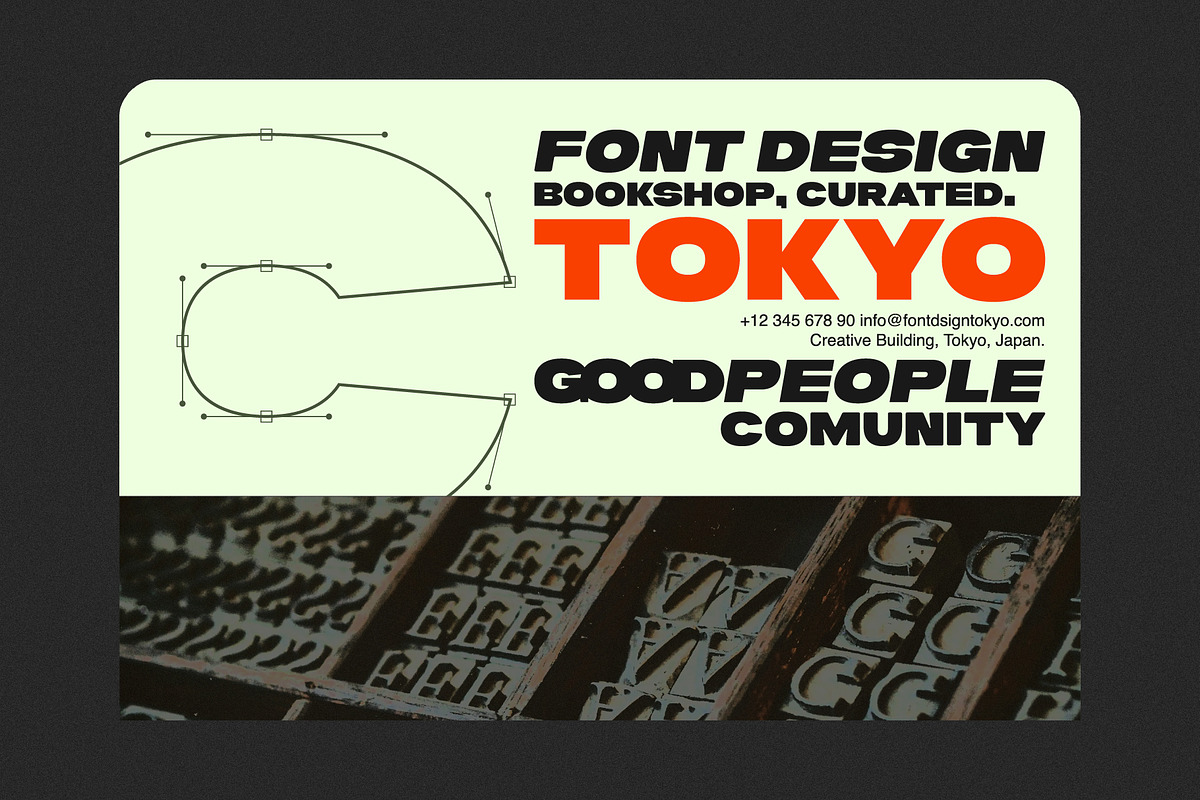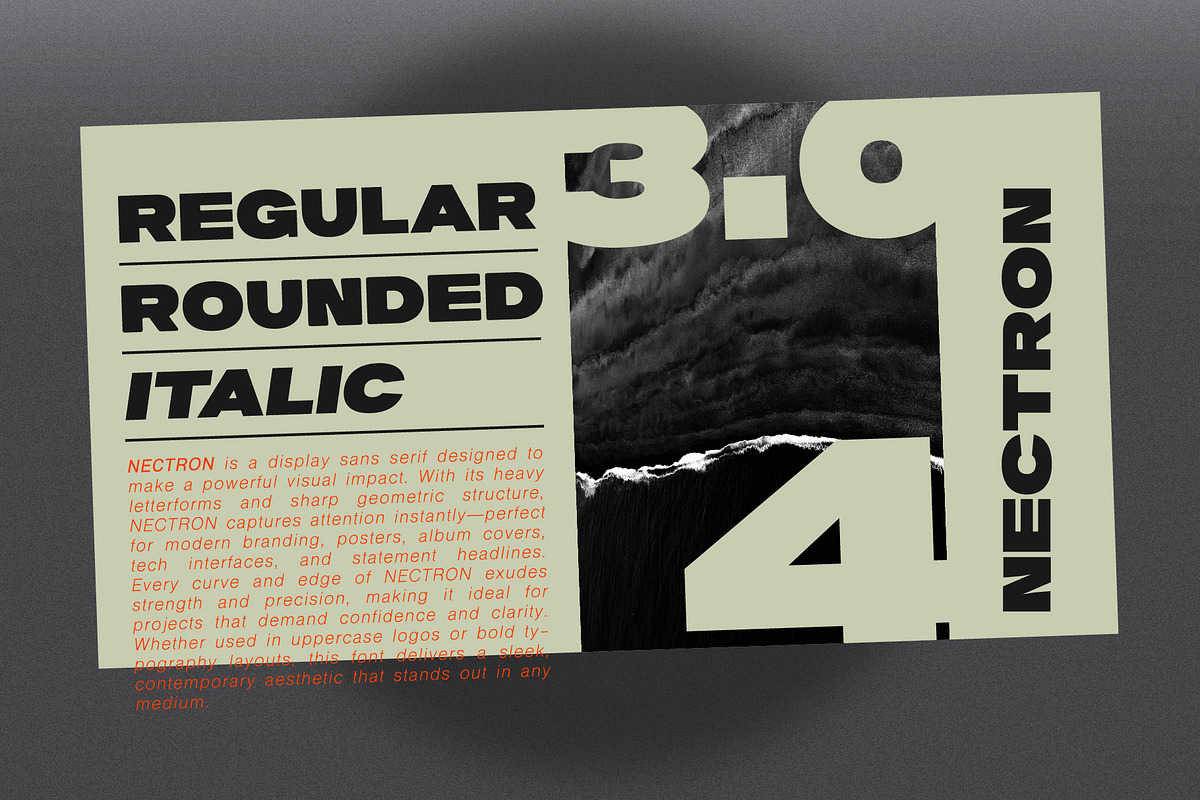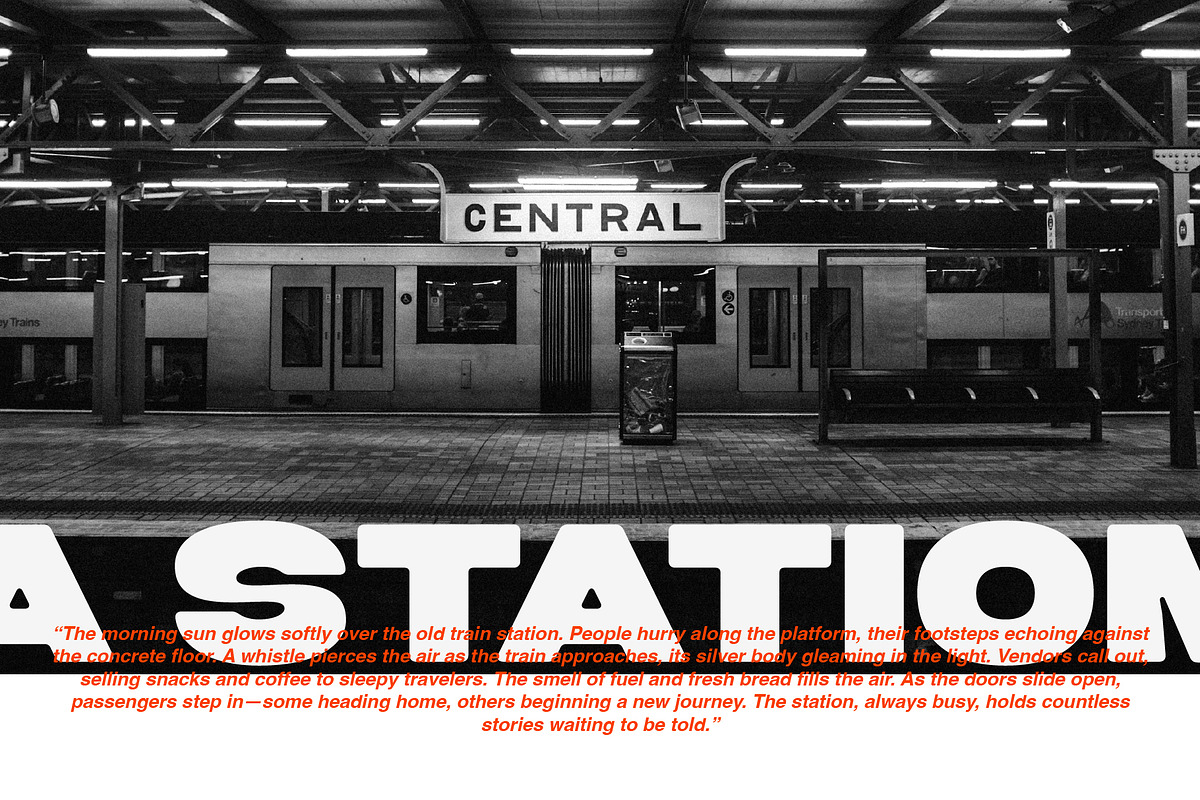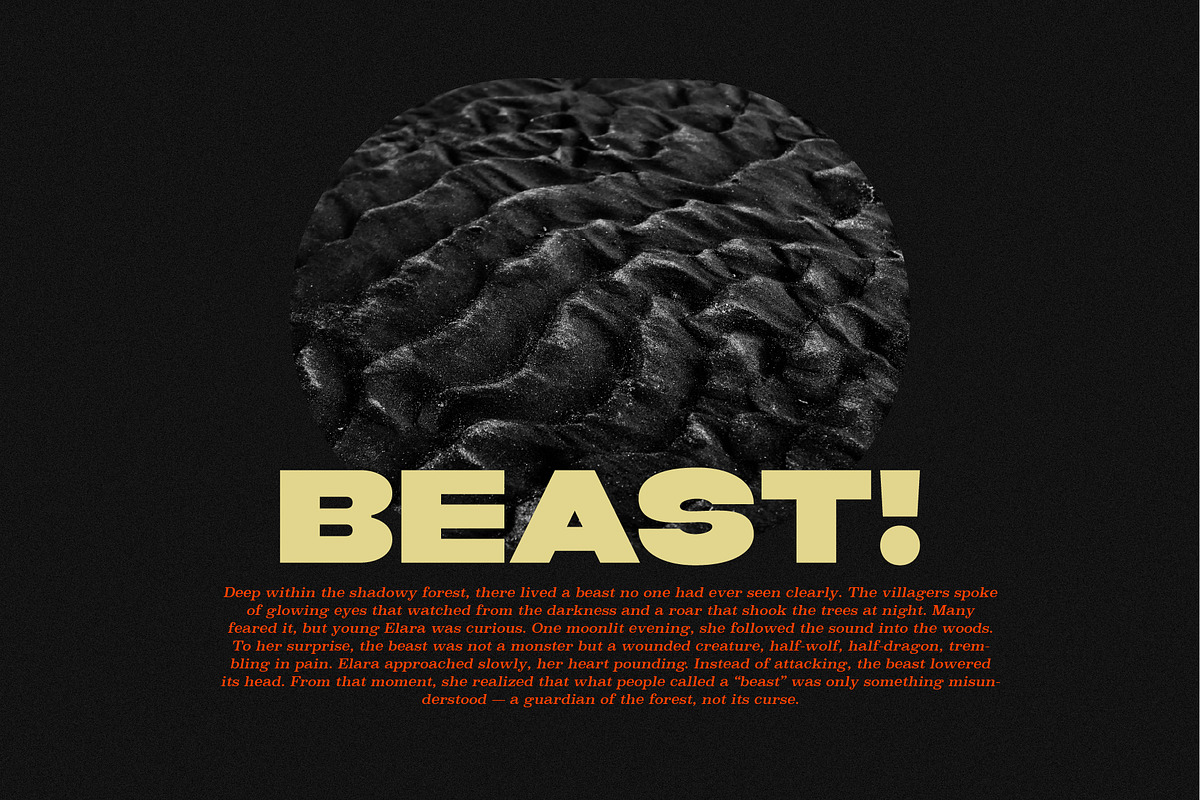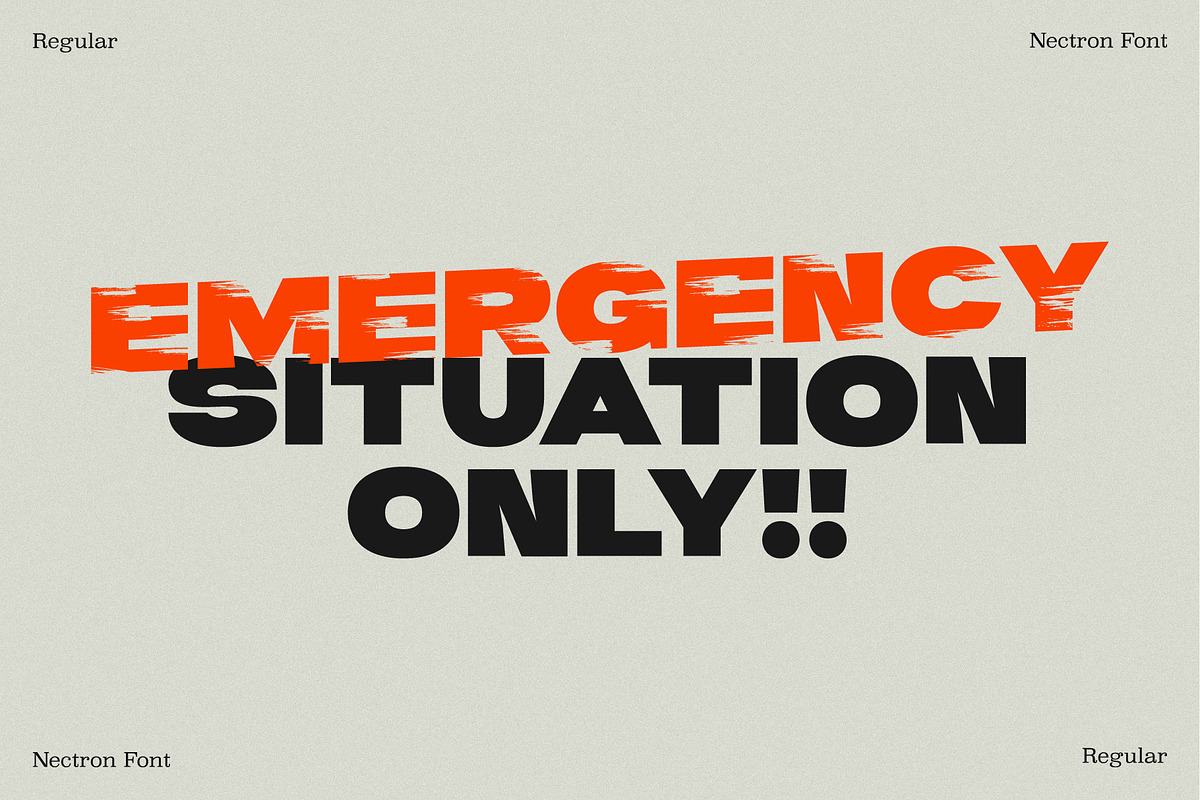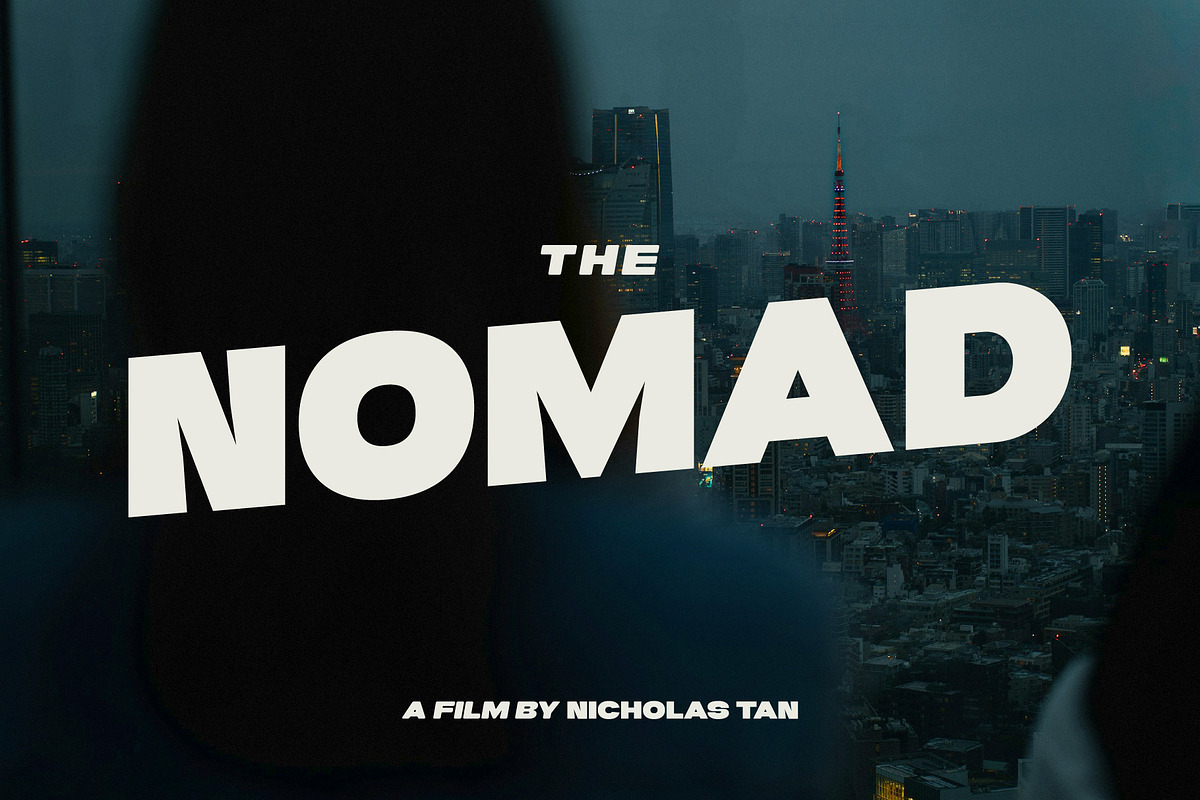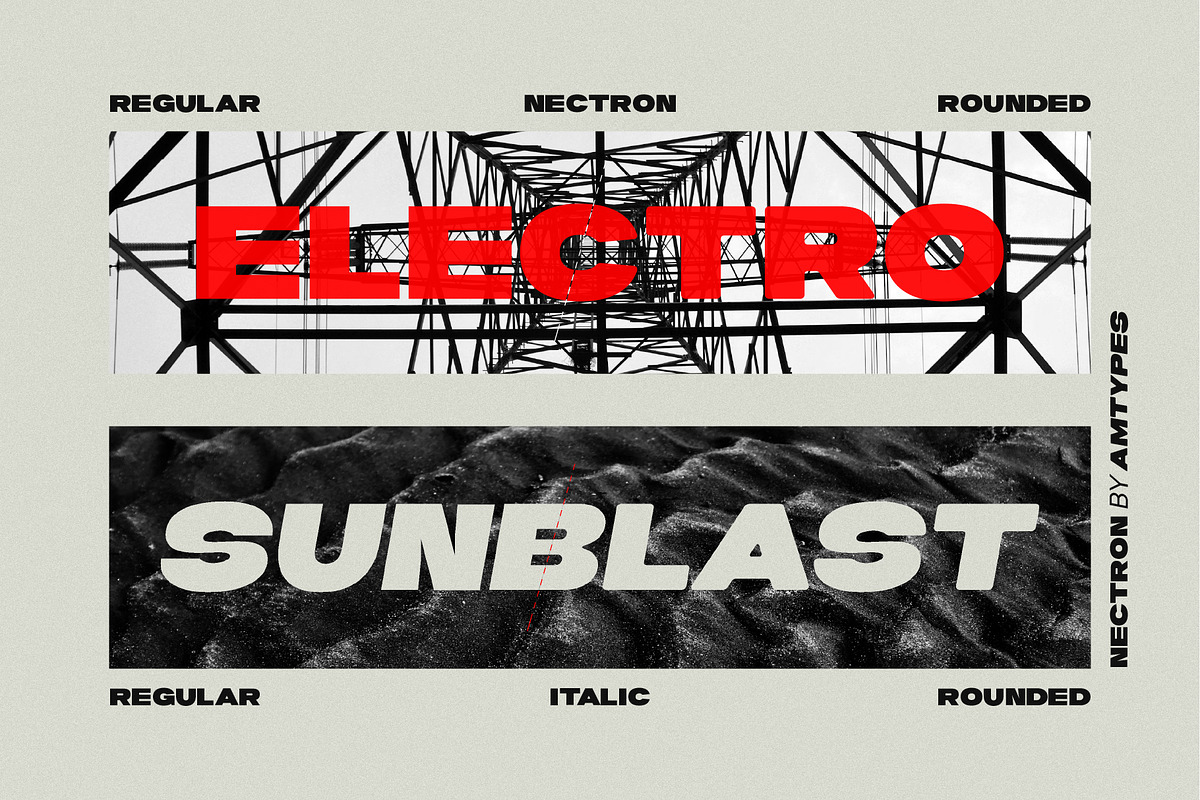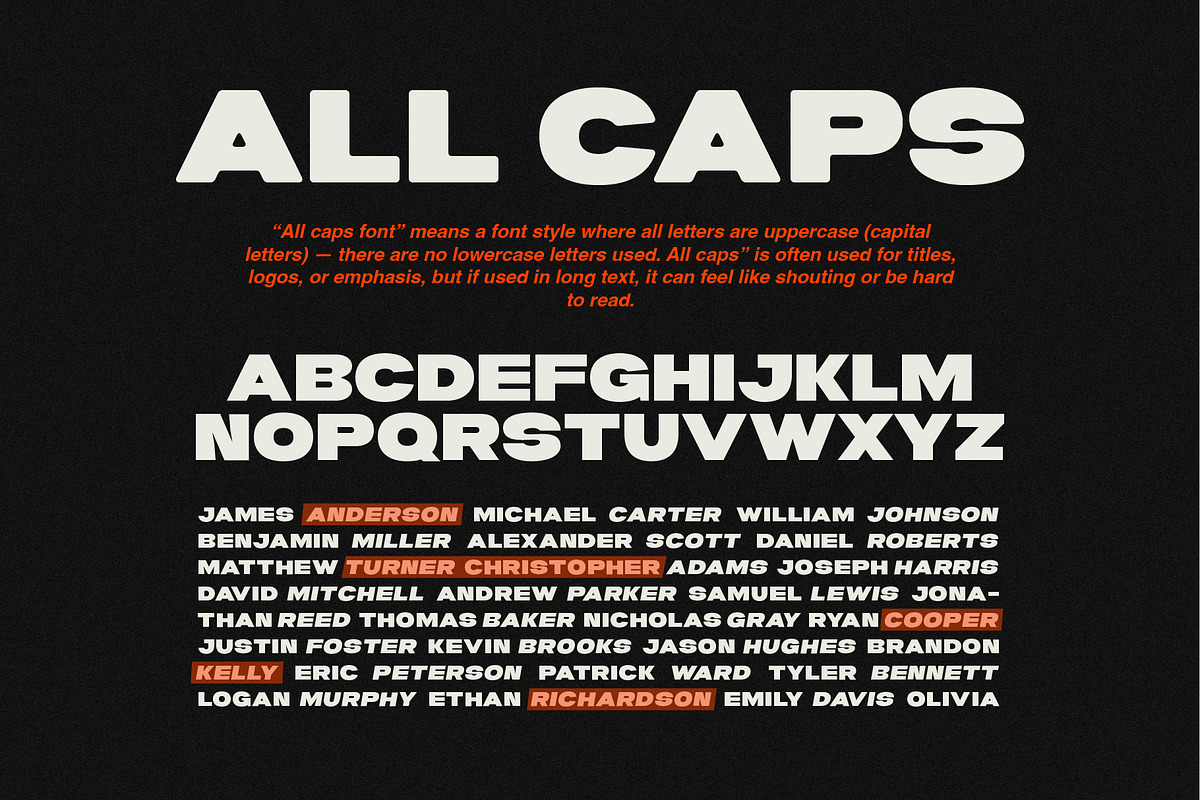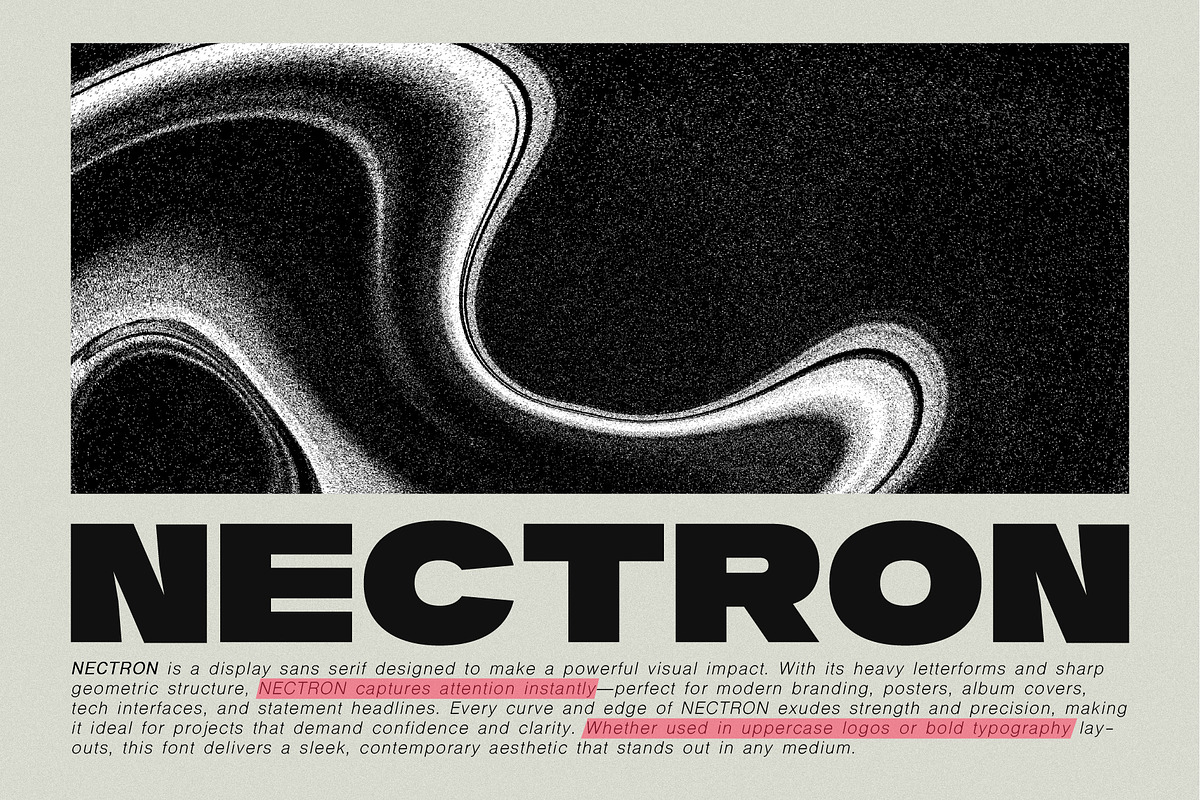
Nectron
NECTRON — Bold Display Sans Serif
NECTRON is a powerful display sans serif font designed to make an instant impact. With its strong geometric forms and sharp precision, this typeface embodies modern confidence and clarity. Perfect for branding, posters, tech interfaces, film titles, and editorial headlines, NECTRON delivers a bold, assertive look that stands out in any visual context. Every curve and edge of NECTRON exudes strength, balance, and precision, making it ideal for projects that demand a clean yet striking aesthetic. Whether used in uppercase logos or bold typography layouts, NECTRON commands attention while maintaining a sleek, contemporary feel.
The font comes in multiple styles — Regular, Italic, and Rounded — allowing for versatile applications across design projects.
- All Caps Typeface
- Regular / Italic / Rounded Styles
- Bold Geometric Letterforms
- Perfect for Logos, Posters, and Headlines
- Great Legibility in Large Sizes
Ideal For: Branding • Posters • Album Covers • Tech Interfaces • Editorial Design • Motion Graphics